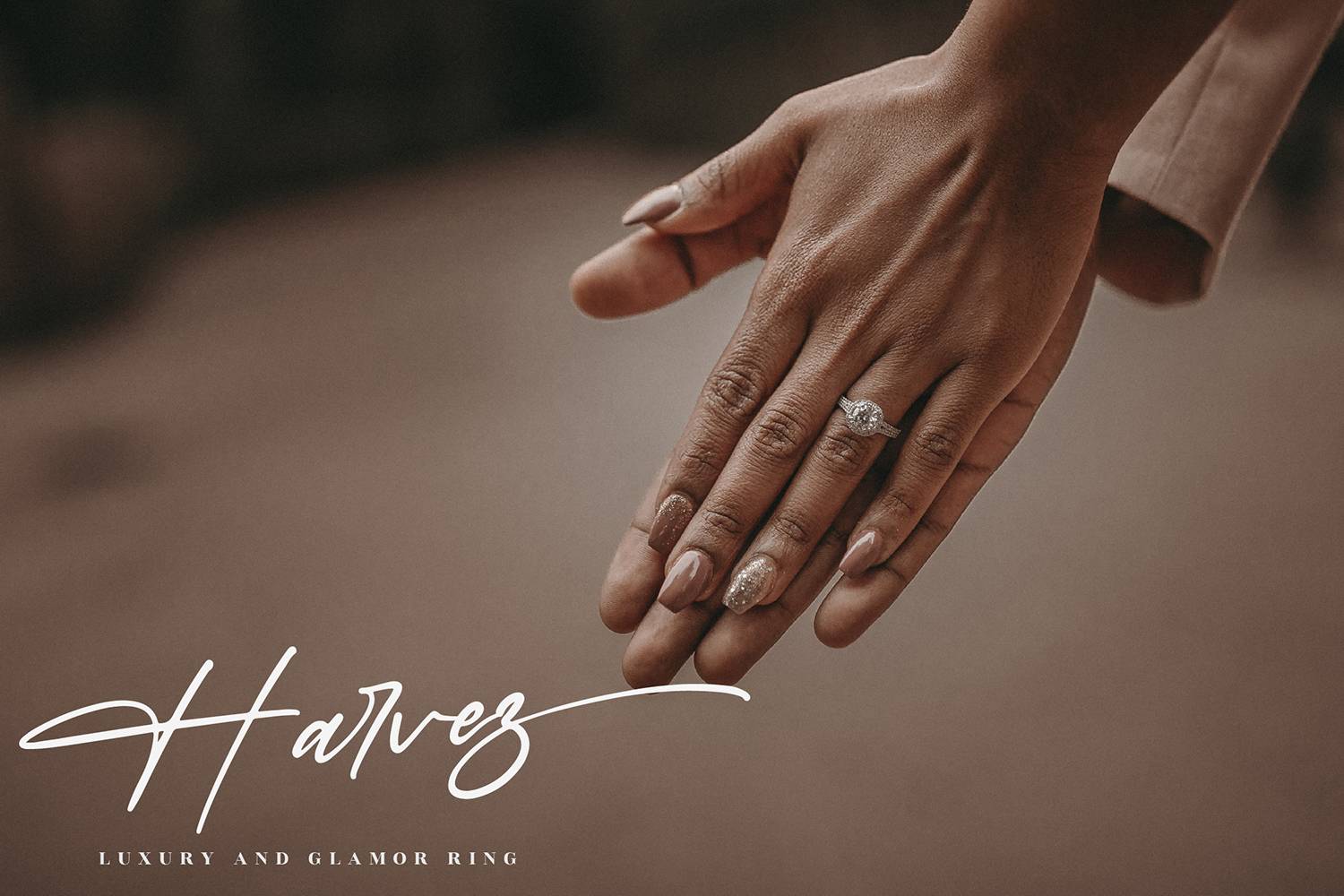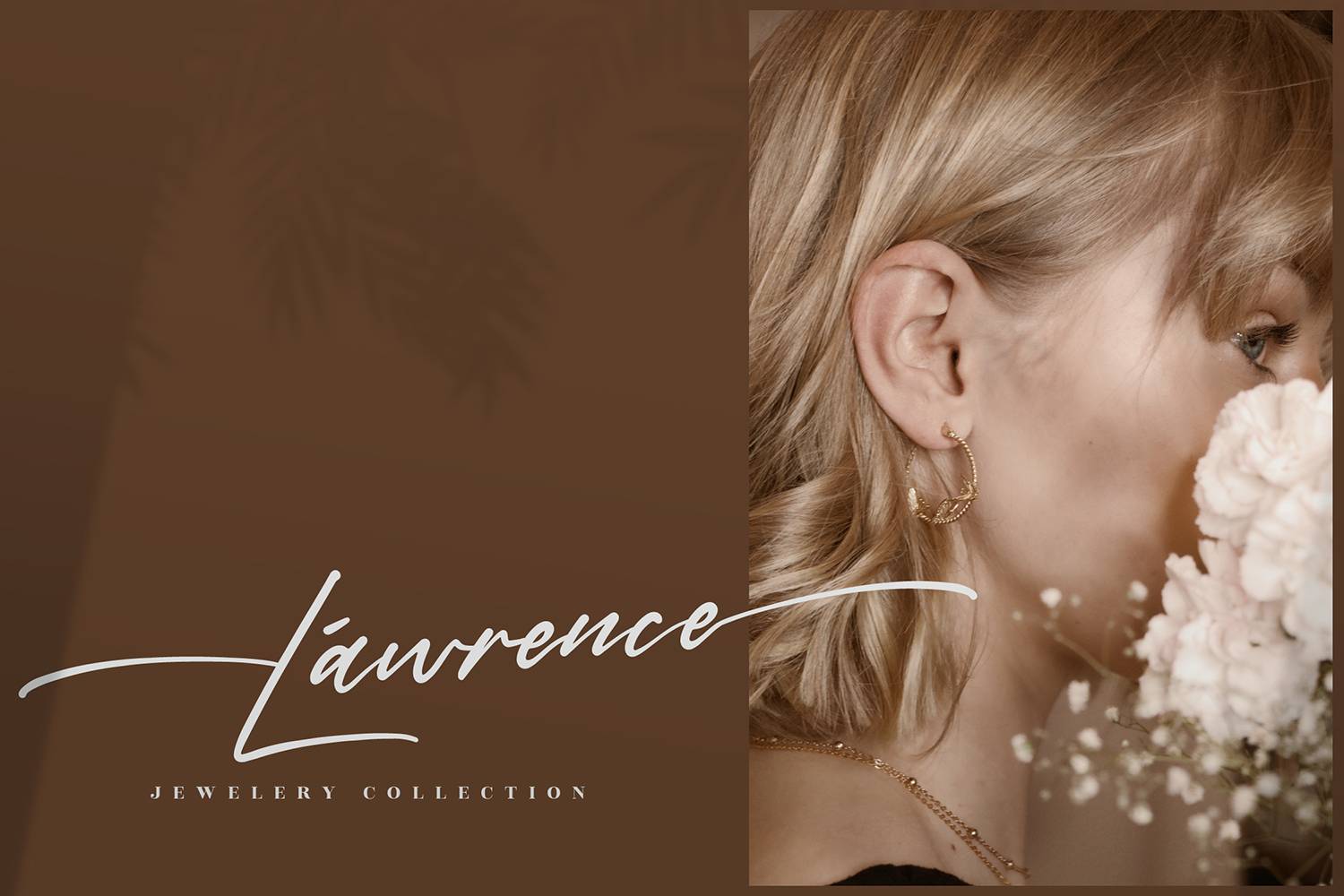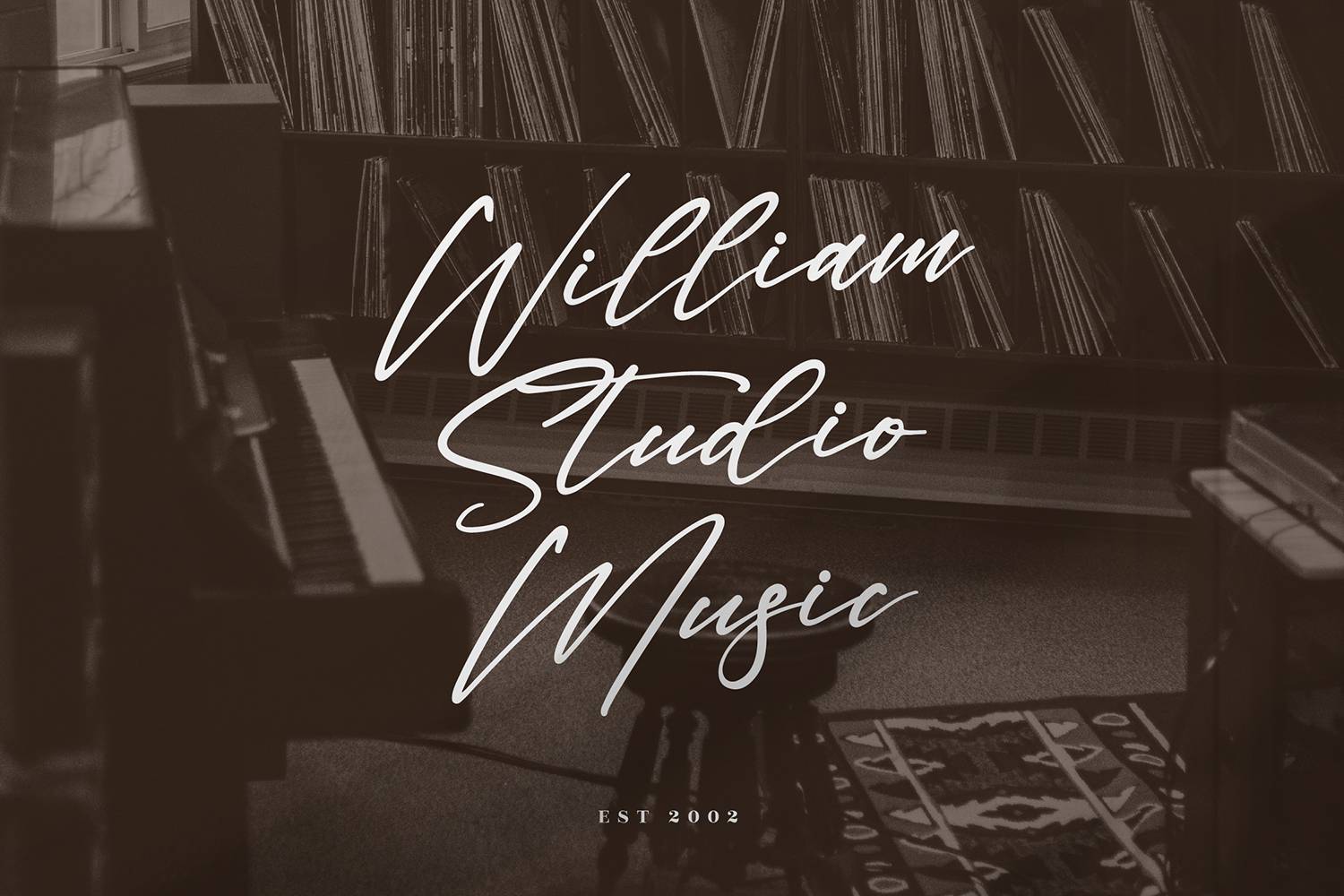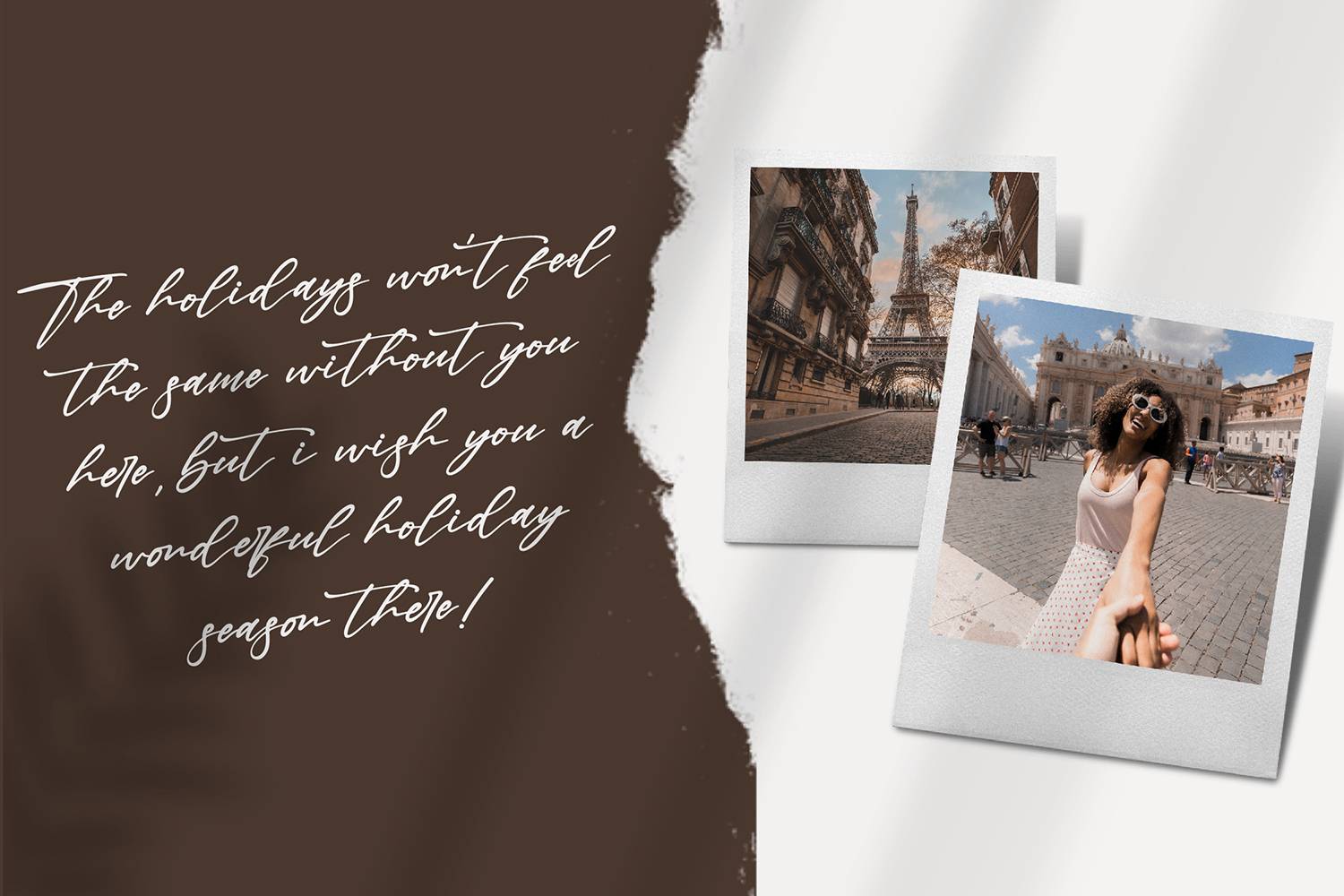
Contage Bright is a stylish, handwritten script font characterized by its elegant, flowing strokes and a light, airy feel. With a delicate balance between smooth curves and sharp edges, it adds a personal and sophisticated touch, making it perfect for invitations, branding, and any project that seeks a modern yet graceful look. Its slender, dynamic letterforms convey warmth and creativity, ideal for fashion, lifestyle, and artistic designs.
Contage Bright Font
About Contage Bright Font